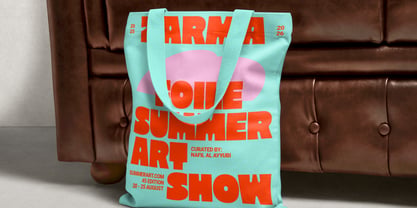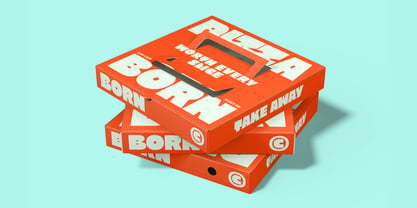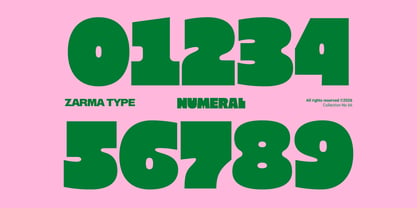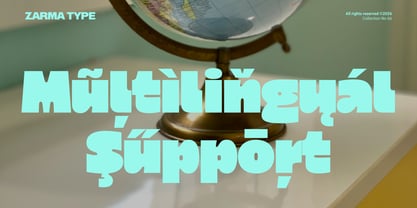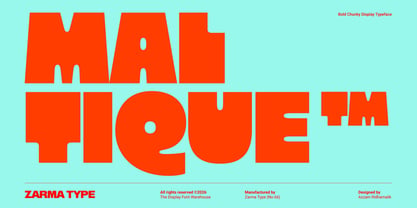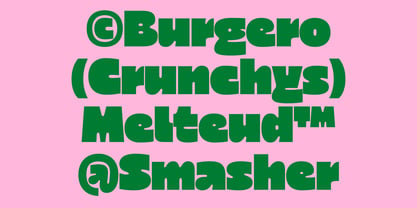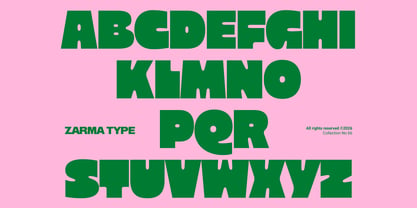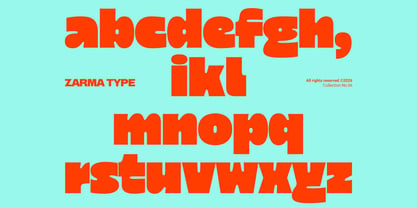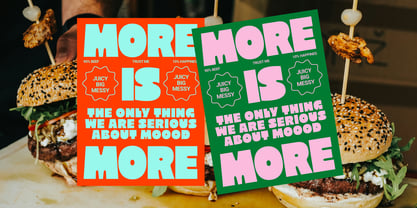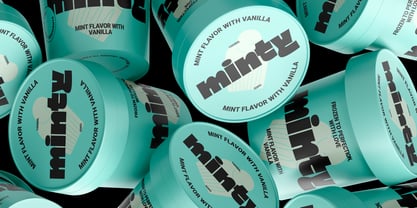
Maltique
Maltique – Extra Bold Chunky Sans
Meet Maltique, an extra-bold chunky sans serif built with oversized proportions, heavy strokes, compact counters, and unmistakable display impact. Its sharp outer corners create a confident silhouette, while soft, melty inner curves bring warmth, movement, and a surprisingly friendly personality to every word.
Designed for expressive visual identities, Maltique works especially well across food packaging, restaurant branding, logos, posters, product labels, editorial headlines, and social media campaigns. Its playful retro-modern character helps large typography feel memorable and energetic without losing the clean strength needed for contemporary design.
Perfect for:
Food and beverage branding, snack and dessert packaging, restaurant and café identities, bold logos, wordmarks, posters, oversized headlines, product labels, menus, social media graphics, editorial layouts, merchandise, apparel, and creative campaigns.
Features:
• Uppercase & Lowercase
• Numbers, Punctuation & Symbols
• Multilingual Support
Give your next project a bold personality that feels powerful, playful, and approachable. Choose Maltique for oversized typography, memorable packaging, and expressive branding that refuses to disappear into the background.